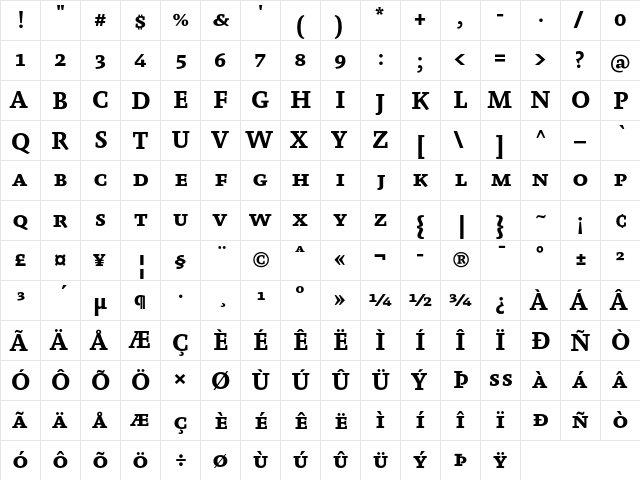
Absara TF Bold SC Regular Font Preview
Absara TF Bold SC Regular
Absara TF Bold SC Regular Font Details
Design Context for Absara TF Bold SC Typeface
Absara TF Bold SC takes a measured approach to typography — its balanced proportions and neutral character make it a reliable workhorse for both digital and print work. The heavy weight commands attention and anchors typographic hierarchies.